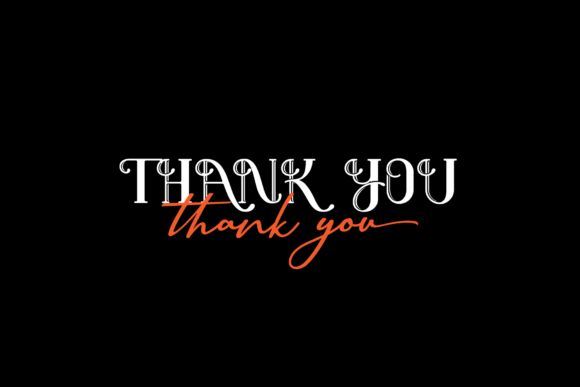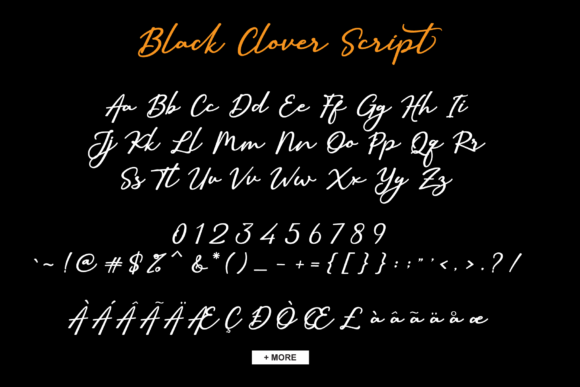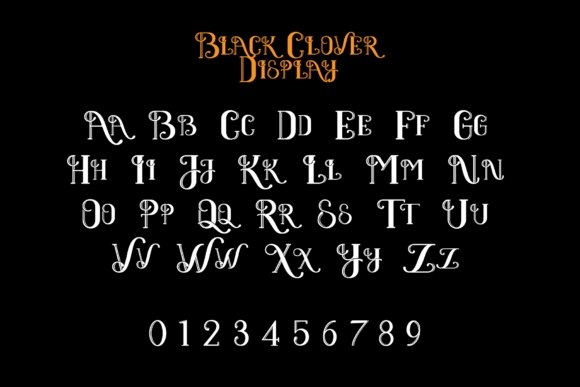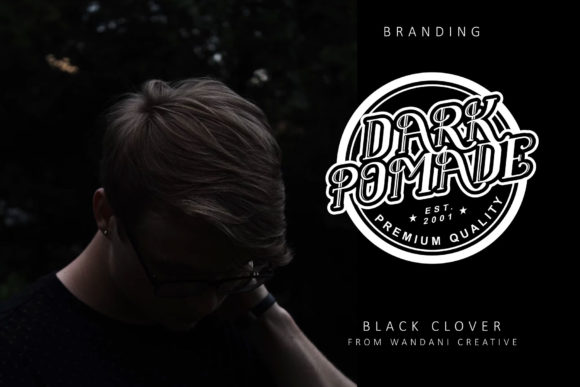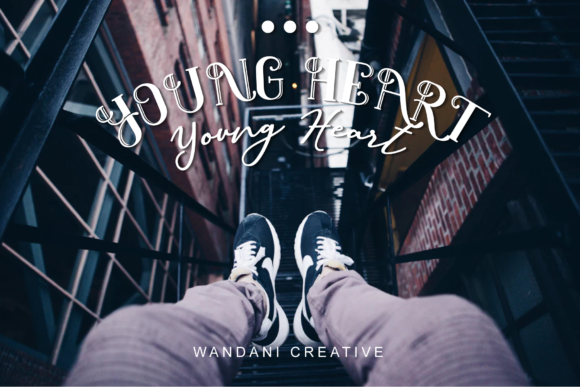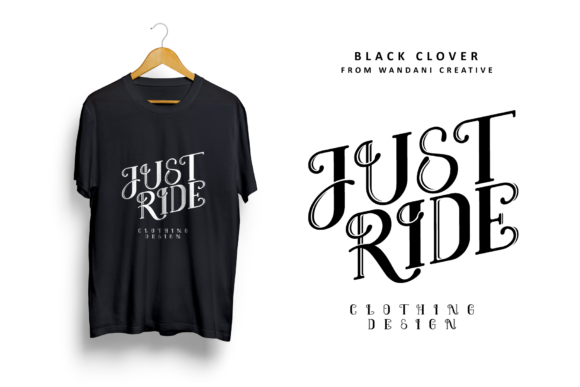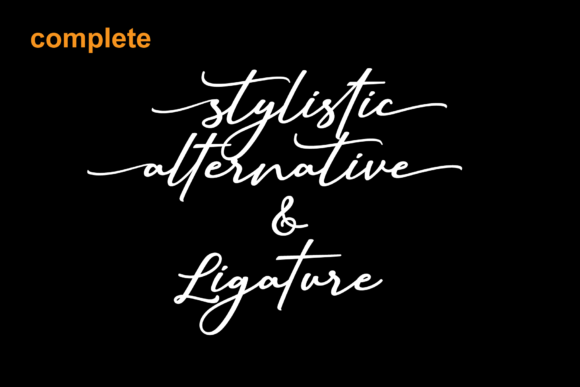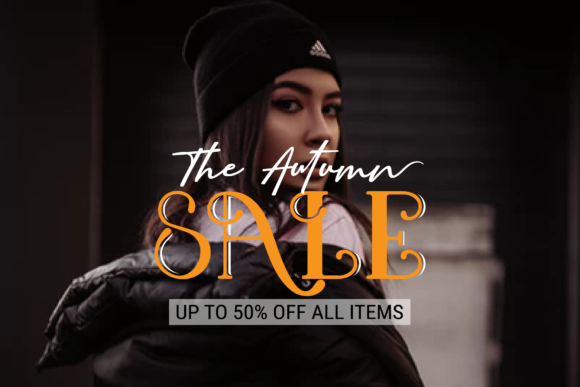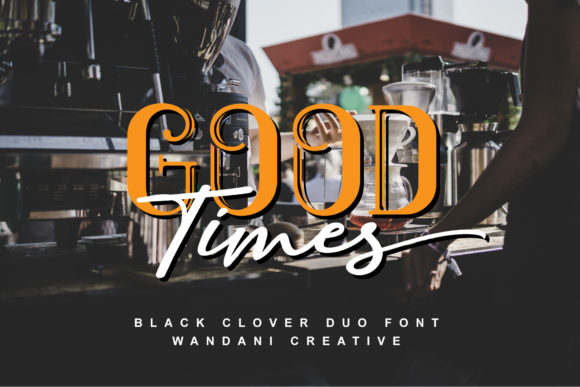
Black Clover Duo Font
About Black Clover Duo Font
The Black Clover is an amazing font duo. It was inspired by the new modern vintage style and includes a script and display version.
This perfect combination can be used for logos, badges, shirts, labels, branding, and much more!